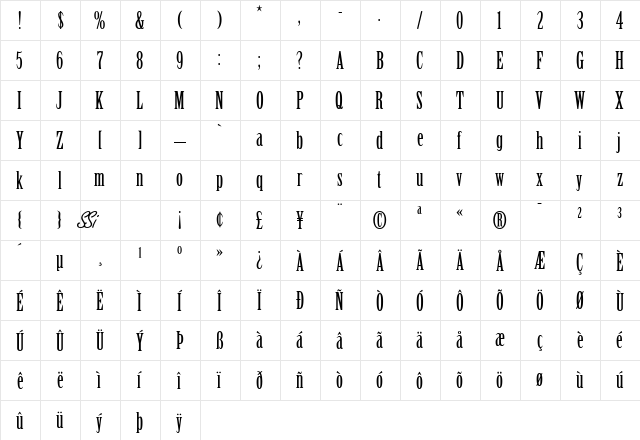
Sentinal SSi Regular
Design Context for Sentinal SSi Typeface
Sentinal SSi is a composed and adaptable typeface that performs quietly and consistently across a wide range of design contexts.